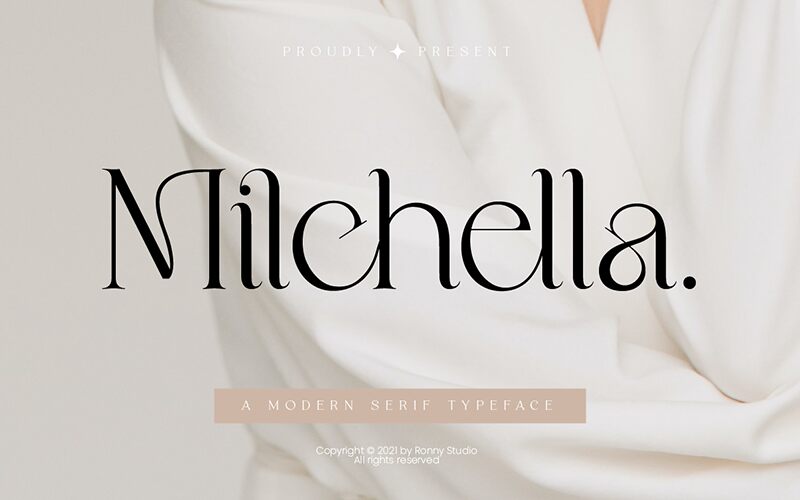
Milchella, designed by Ronny Studio, is a stunning semi-light serif font that exudes elegance and sophistication. Its stylish curves and clean lines make it perfect for projects that require a touch of refinement, such as high-end fashion magazines or luxury lifestyle brands. The font's graceful appearance also lends itself well to wedding invitations, elegant branding campaigns, and sophisticated product packaging. Milchella's versatility allows it to be used in a wide range of design projects, from classic to contemporary styles. Add this beautiful serif font to your collection and elevate your designs with its timeless charm.
Milchella